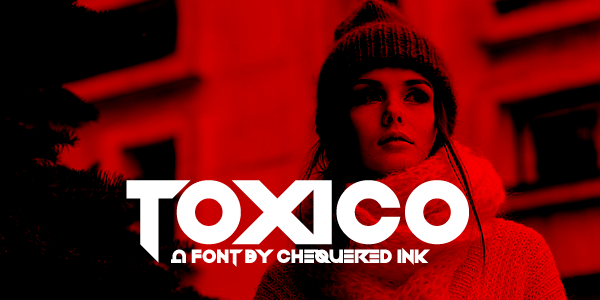
Toxico
Named for: Toxic + Texaco
I had the honour of this font being used by Phil “The Power” Taylor, arguably one of the greatest darts players of all time, in his retirement season apparel.